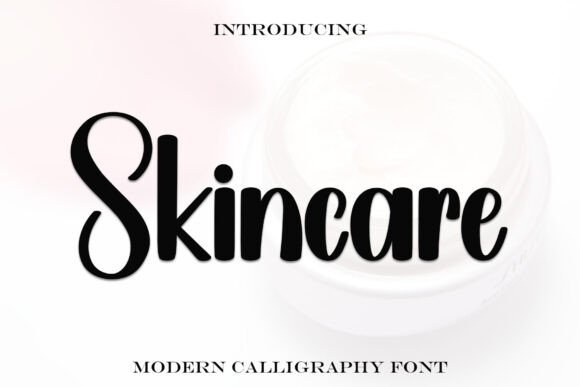
Skincare: The Handwritten Display Font for Editorial Design
Skincare is a trendy handwritten font with a contemporary atmosphere and impeccable form, inspired by timeless classic calligraphy. It will add elegance and class to any of your design projects. As an editorial designer who frequently navigates the delicate balance between visual flair and readability, I have found that finding the right Display typeface can transform a standard layout into a compelling narrative. This specific Fonts collection offers more than just character shapes; it provides a voice for brands and publications seeking to establish a sophisticated yet approachable identity.
How Skincare Elevates Magazine Covers and Publication Branding
When you introduce Skincare as a trendy handwritten font with a contemporary atmosphere and impeccable form, inspired by timeless classic calligraphy, you immediately set a tone of refined luxury on your cover pages. It will add elegance and class to any of your design projects, making it the perfect choice for magazine titles or digital publication headers where first impressions are critical. Unlike rigid geometric sans-serifs, this Display style captures the fluidity of human handwriting while maintaining the structural integrity required for professional branding. For lifestyle magazines or high-end fashion journals, using Skincare allows the title to feel personal and curated rather than mass-produced. The font's ability to convey "impeccable form" ensures that even at large sizes, the letterforms remain legible and impactful, drawing the reader's eye instantly to the main headline.
Applying Skincare to Ebook Titles and Chapter Openers
In the realm of digital publishing, Skincare serves as a powerful tool for establishing hierarchy within ebooks and guides. Its nature as a trendy handwritten font with a contemporary atmosphere and impeccable form, inspired by timeless classic calligraphy, makes it ideal for distinguishing chapter titles from body text. When designing a cookbook or a self-help workbook, placing Skincare at the top of a page creates a sense of intimacy, as if the author is personally addressing the reader. It will add elegance and class to any of your design projects by breaking the monotony of standard serif headings. Because it is categorized under Display Fonts, it is not intended for long paragraphs of body copy but rather acts as a visual anchor. Pairing these elegant headings with a clean, highly readable serif font for the main text ensures that the reader remains engaged without sacrificing comprehension.
Why Skincare Works Best for Newsletter Graphics and Social Media
Digital creators often struggle to maintain brand consistency across various platforms, but Skincare bridges that gap effectively. As a trendy handwritten font with a contemporary atmosphere and impeccable form, inspired by timeless classic calligraphy, it translates beautifully from desktop designs to mobile screens. It will add elegance and class to any of your design projects, whether you are creating a lead magnet PDF, a social media quote card, or a promotional banner for a paid newsletter. The unique personality of this Display Fonts selection helps content stand out in crowded feeds where users scroll quickly. By using Skincare for pull quotes or key takeaways, you guide the reader's attention to the most valuable information, increasing engagement rates. The script-like quality suggests authenticity, which is essential for building trust with an audience in the creator economy.
Integrating Skincare into Printable Guides and Worksheets
For designers producing tangible assets like planners, workbooks, or educational worksheets, Skincare offers a tactile quality that enhances the user experience. Its foundation as a trendy handwritten font with a contemporary atmosphere and impeccable form, inspired by timeless classic calligraphy, brings a bespoke feel to printable materials. It will add elegance and class to any of your design projects, turning a simple document into a premium product that customers are eager to use. When used for section dividers or instructional headers, Skincare softens the functional aspect of the page, making complex instructions feel more accessible. This Display Fonts option is particularly effective when paired with ample white space, allowing the intricate details of the letterforms to breathe and create a sense of calm organization.
Selecting the Right Font Pairings for Editorial Layouts
To maximize the impact of Skincare, one must consider how it interacts with supporting typography. While it is a trendy handwritten font with a contemporary atmosphere and impeccable form, inspired by timeless classic calligraphy, it requires a neutral partner to ensure overall readability. It will add elegance and class to any of your design projects when paired correctly, such as combining it with a classic serif font for body text or a minimalist sans-serif for navigation elements. This combination creates a balanced visual rhythm where the Display Fonts provide the emotional hook, and the secondary typeface delivers the informational content clearly. Avoid pairing it with other scripts, as the competition for attention can clutter the layout. Instead, let Skincare shine as the primary accent, using its flowing lines to contrast against the structured grid of modern editorial design.
Maximizing Visual Hierarchy with Skincare Headlines
Effective editorial design relies heavily on guiding the reader through the content, and Skincare excels at establishing clear visual hierarchy. With its characteristics as a trendy handwritten font with a contemporary atmosphere and impeccable form, inspired by timeless classic calligraphy, it naturally draws the eye to the most important parts of a layout. It will add elegance and class to any of your design projects by differentiating headlines from subheadings and body text. When used strategically for article intros or section breaks, Skincare adds a layer of sophistication that generic fonts cannot achieve. This Display Fonts choice is particularly effective for creating a cohesive look across a series of articles or a multi-page spread, ensuring that the publication feels unified and professionally crafted.
The Role of Skincare in Modern Typography Trends
As design trends shift towards more organic and human-centric aesthetics, Skincare stands out as a versatile solution for modern creators. It embodies the essence of a trendy handwritten font with a contemporary atmosphere and impeccable form, inspired by timeless classic calligraphy, making it relevant for current market demands. It will add elegance and class to any of your design projects by offering a bridge between traditional craftsmanship and digital innovation. Whether you are updating an existing brand identity or launching a new creative venture, incorporating this Display Fonts option signals a commitment to quality and style. The font's adaptability allows it to fit seamlessly into diverse contexts, from luxury beauty blogs to artisanal food guides, proving its value as a staple in any designer's toolkit.